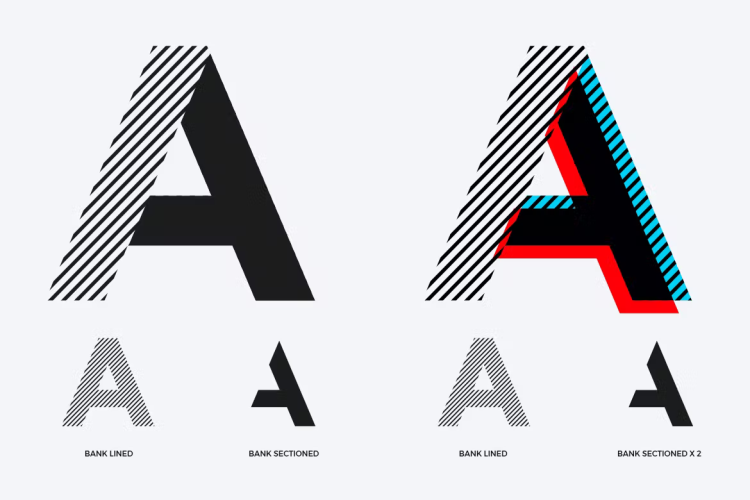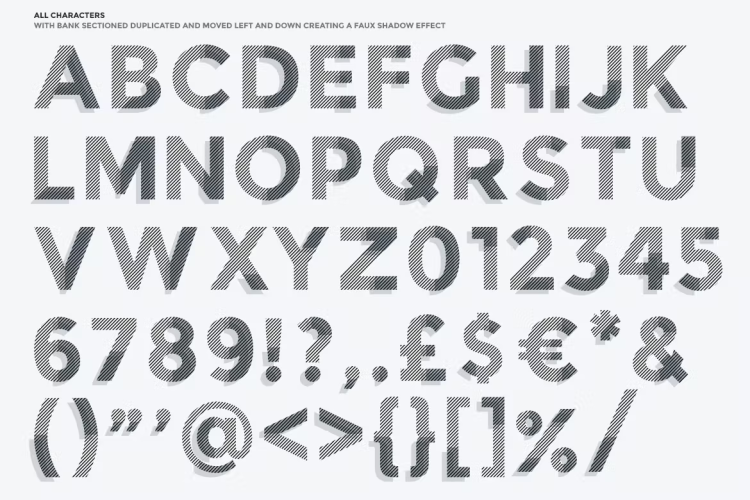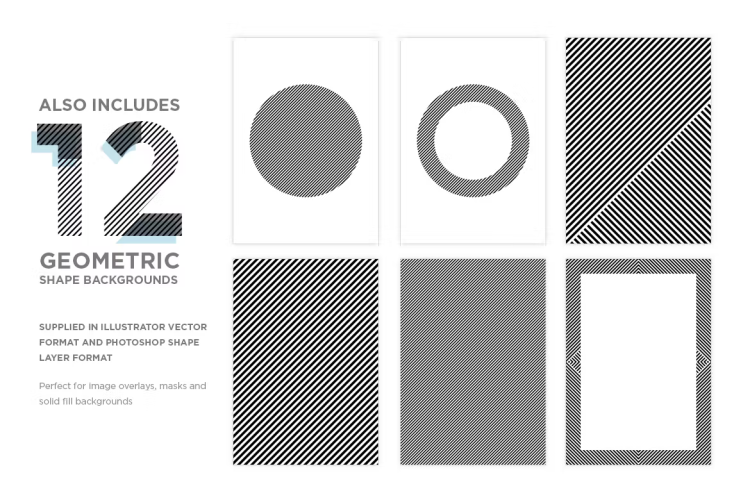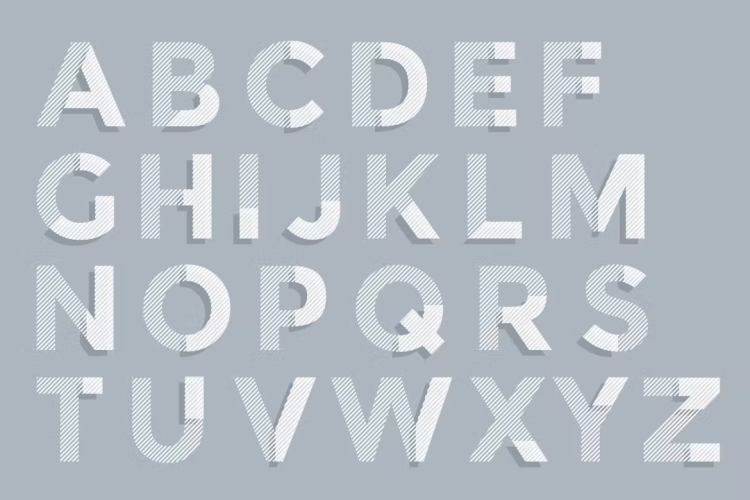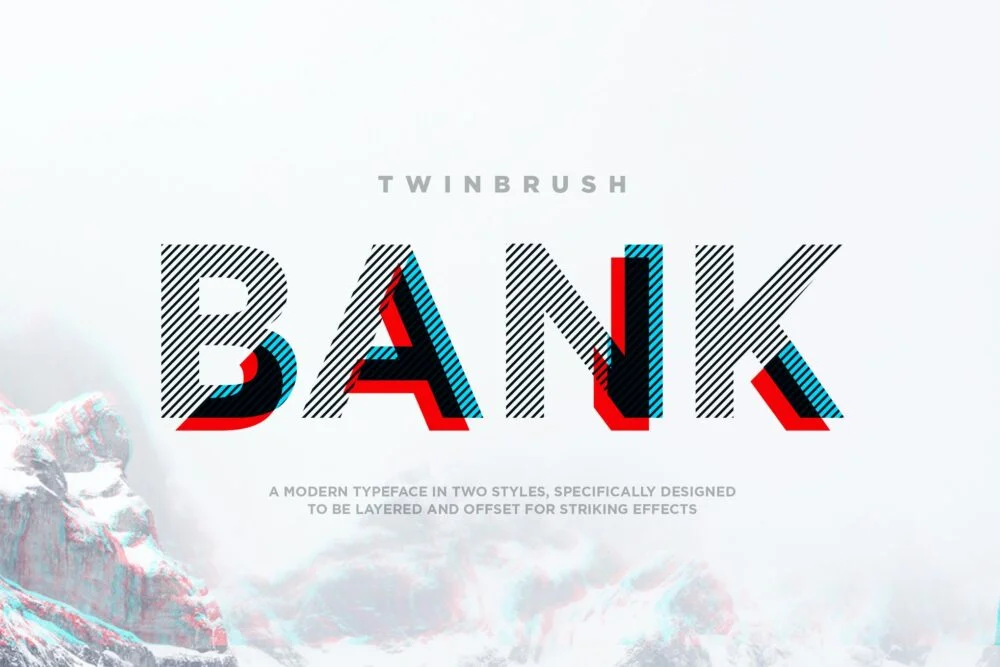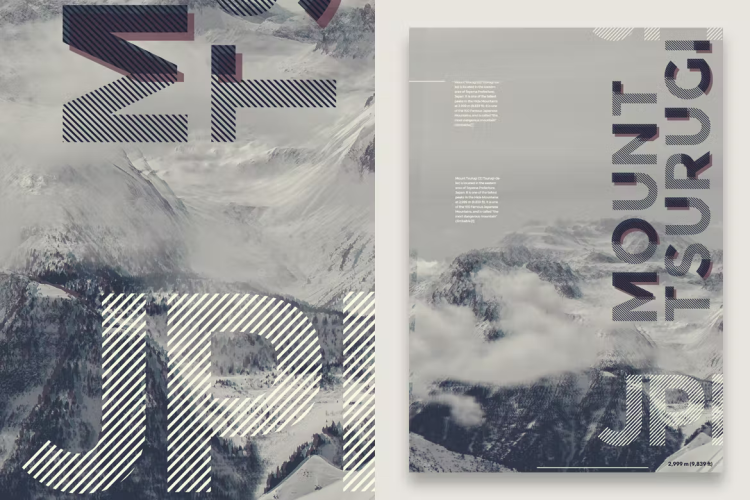
Bank Nue Font
Bank Nue Font comes in two weights (styles); Lined and Sectioned. These have been meticulously designed to be combined and layered, creating a dynamic and striking appearance. By using different color options there is virtually an unlimited range of outcomes you can achieve.
As a display font, Bank Nue works best at larger sizes, ideal for poster, logo design, banners, branding, or any other project where you need to make a statement.
The download also comes with 12 geometric shapes (in Psd and Ai format) that compliment the linear and angled appearance of Bank Nue. These can be used to add additional oomf to your designs.
Bank Nue Font is a Decorative Fonts font that brings a professional and versatile look to your projects. Bank Nue Font comes in two weights (styles);  Lined  and  Sectioned .